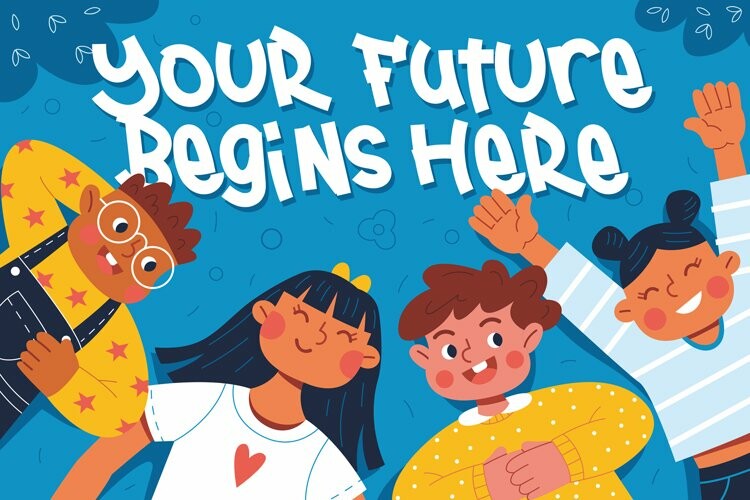
Roley Boink Font
Roley Boink FontSay hello to Roley Boink font. Made with love and joy. Handwritten look, so it will make your design more beautiful, cute, fun, and colorful.